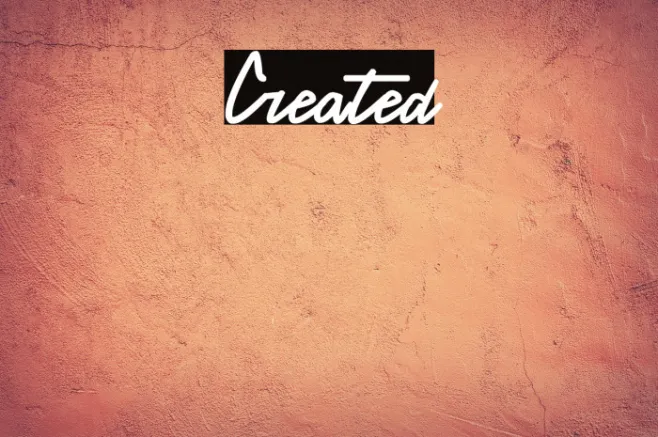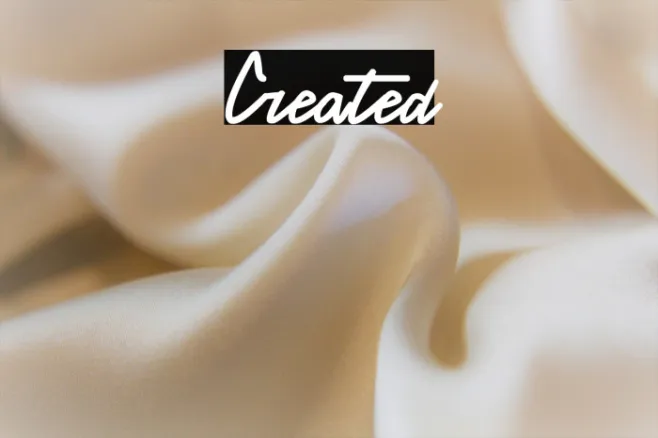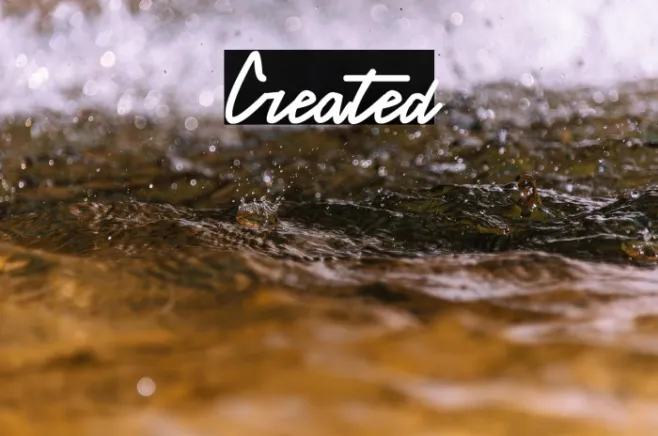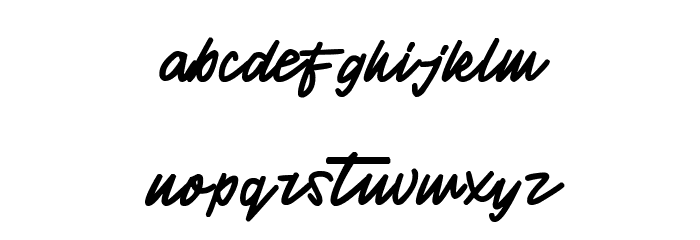
Created Font
Created Description
This font exudes a casual and dynamic handwritten style, characterized by its fluid and connected strokes. The uppercase letters are bold and slightly slanted, giving a sense of movement and energy. The lowercase letters maintain a consistent flow, enhancing the handwritten aesthetic. Numbers and special characters are crafted with the same lively touch, ensuring uniformity across all glyphs. The overall impression is one of spontaneity and creativity, making it ideal for projects that require a personal and informal touch.
| Overall Style | Casual, Creative |
| Use Case | Logos, Headlines, Informal Text |
| Proposed Projects | Ideal for greeting cards, personal branding, creative posters, and social media graphics. |